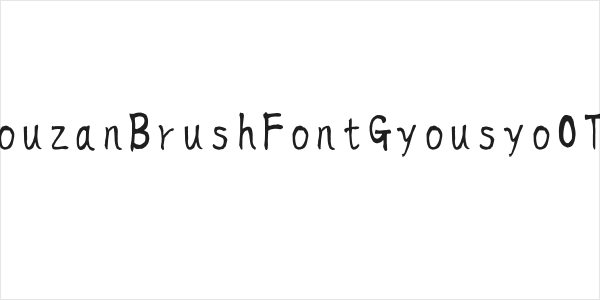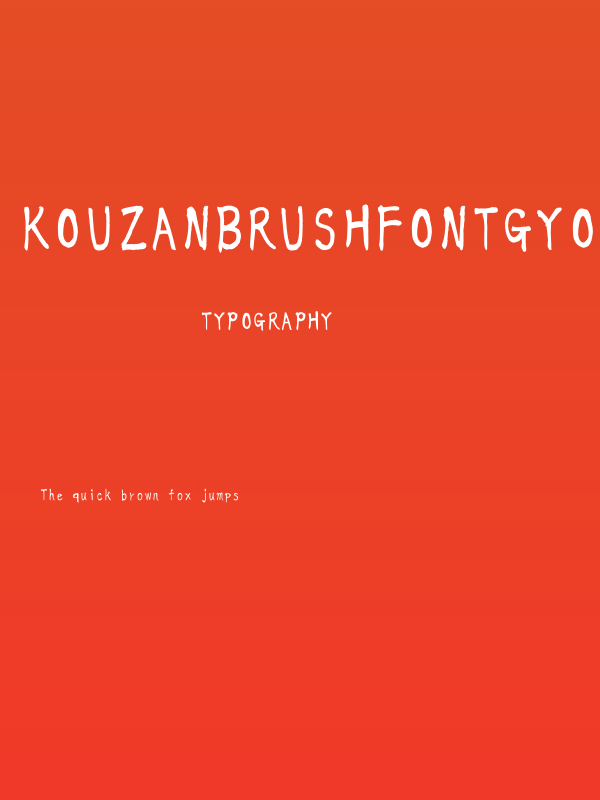
KouzanBrushFontGyousyoOTF Font
KouzanBrushFontGyousyoOTF Description
This font exudes a hand-drawn, brush-like quality, characterized by its organic and fluid strokes. The letters have a natural, uneven texture that mimics the appearance of ink on paper, giving it a dynamic and lively feel. The uppercase and lowercase letters maintain a consistent style, with slight variations in thickness that add to the font's charm. The numerals and special characters follow the same aesthetic, ensuring a cohesive look across all glyphs. This font is ideal for projects that require a personal, artistic touch, such as invitations, greeting cards, or creative branding.
| Overall Style | Artistic, Organic |
| Use Case | Headlines, Artistic projects, Branding |
| Proposed Projects | Ideal for invitations, greeting cards, artistic branding, and creative projects. |